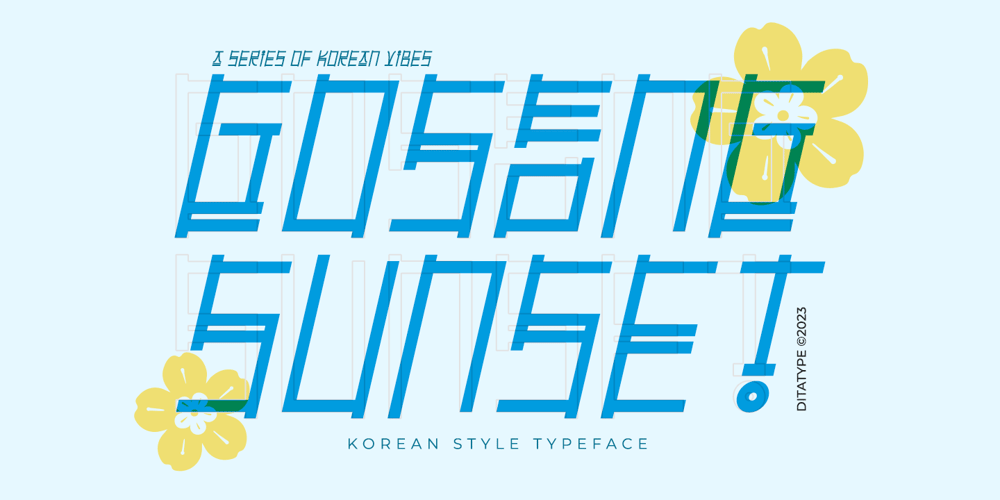
Goseong Sunset Font Family was designed by Donis Miftahudin and published by Ditatype. Goseong Sunset contains 2 styles and family package options. Goseong Sunset is a striking display font that seamlessly blends contemporary design with traditional Korean aesthetics. Crafted with precision, this font stands out with its unique, not-too-thick lettering, embodying a sleek and modern look while paying homage to the elegant simplicity of Korean typography.The defining characteristic of Goseong Sunset is its rectangular letter shapes, which are accentuated by sharp, clean corners. This geometric precision offers a fresh and edgy take on standard display fonts. Despite its strong structure, Goseong Sunset retains an air of approachability and versatility. The moderate weight of the font ensures that it is neither overpowering nor too delicate. This makes Goseong Sunset a go-to choice for designers looking to infuse a touch of Korean-inspired minimalism into their work. In addition, enjoy the features here.Features: Ligatures Multilingual Supports PUA Encoded Numerals and Punctuations Goseong Sunset fits in headlines, logos, posters, flyers, branding materials, greeting cards, print media, editorial layouts, and many more designs. Find out more ways to use this font by taking a look at the font preview.Thanks for purchasing our fonts. Hopefully, you have a great time using our font. Feel free to contact us anytime for further information or when you have trouble with the font. Thanks a lot and happy designing.